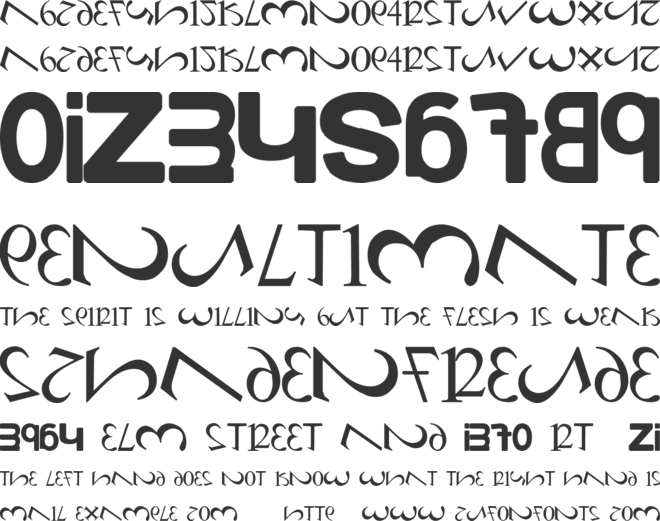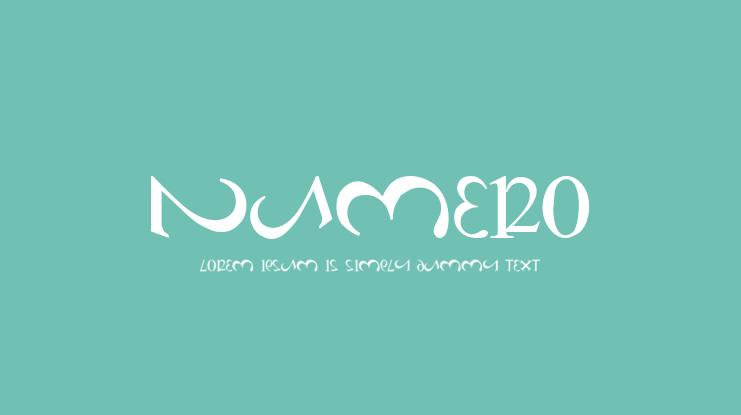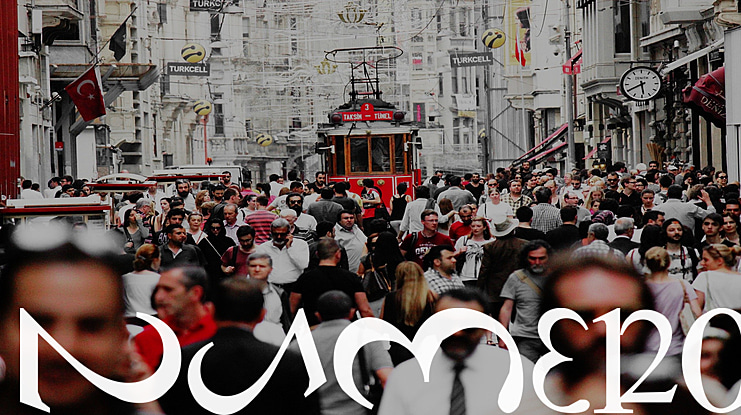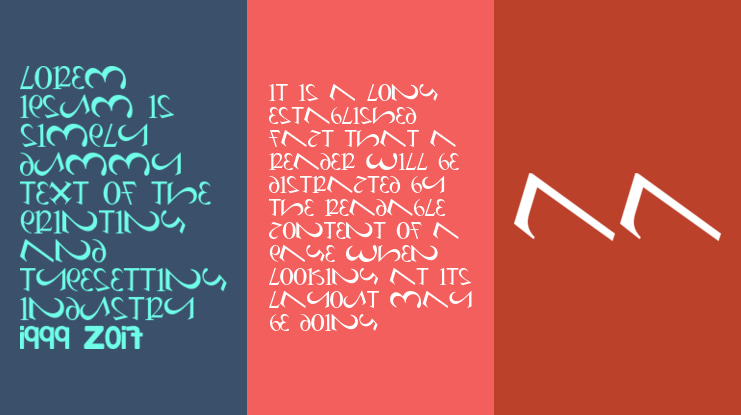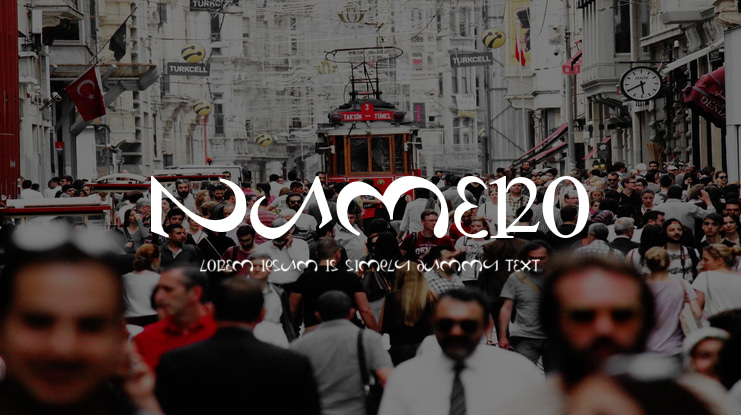
Numero Font
created a typeface where alphabets become numbers and vice-versa. the trick here was to use very common existing typefaces for the alphabets (times new roman) and another for the numbers (arial)!